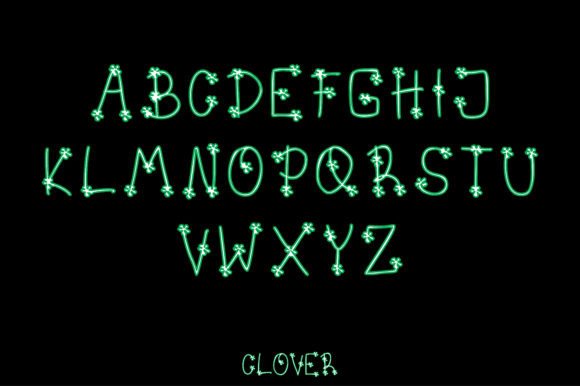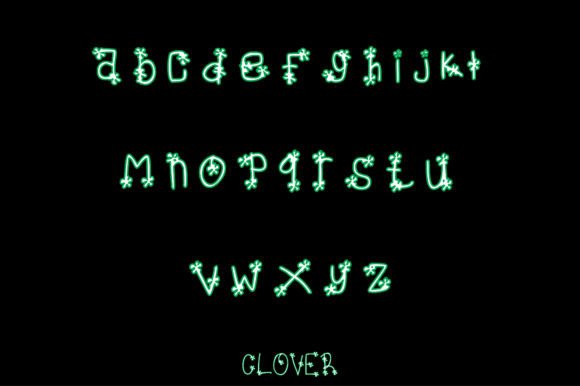
About Clover Font
“Clover” is a charming and whimsical handwritten font, bringing a cute and delightful touch to your design projects. Specifically crafted for Irish-themed or Saint Patrick’s Day projects, this font allows you to confidently enhance your creations with a playful and distinctive aesthetic.
The cute and whimsical nature of “Clover” makes it an excellent choice for projects that require a lighthearted and endearing feel. It adds a touch of charm that can resonate with audiences and create a positive and joyful atmosphere.
This font is especially well-suited for Irish-themed designs, capturing the essence of the theme with its playful and handwritten style. It provides a unique and personalized touch to projects related to Irish culture or celebrations.
For Saint Patrick’s Day projects, “Clover” can be a standout element, contributing to the festive and celebratory atmosphere associated with this occasion. Its whimsical design adds a touch of fun and creativity to your designs.
The versatility of “Clover” extends beyond themed projects, making it suitable for various applications where a cute and handwritten aesthetic is desired. Whether used in posters, invitations, or social media graphics, this font can infuse a sense of warmth and friendliness.
In summary, “Clover” stands out as a cute and whimsical handwritten font designed to elevate Irish-themed or Saint Patrick’s Day projects. Its playful nature and versatility make it a valuable asset for designers looking to add a charming and personalized touch to their creations.